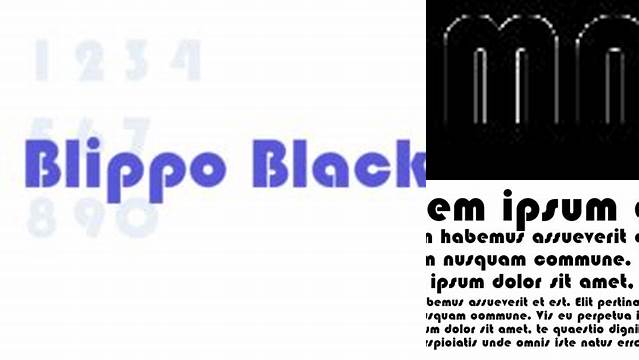
Hey everyone! Are you looking to add a touch of retro coolness to your designs? Well, you've come to the right place. Let's dive into everything you need to know about the Blippo Black MN font and how to snag it for free.
1. What is Blippo Black MN Font?
Blippo Black MN font is a typeface that screams vintage vibes. Imagine the groovy designs of the 1970s – that's the essence of Blippo. This font is characterized by its rounded, bold letterforms, making it perfect for headlines, posters, and any project where you want to make a statement. It's a display font, meaning it's best used in larger sizes to truly appreciate its unique characteristics. Think retro advertising, album covers, or even a funky logo design. Its playful yet impactful design ensures that it captures attention and brings a sense of nostalgia to any project. The font's bold weight makes it highly legible even from a distance, making it suitable for banners and billboards as well. Moreover, its unique aesthetic makes it stand out from more conventional fonts, allowing designers to create memorable and distinctive visual experiences. Blippo Black MN font is more than just a typeface; it's a design element that can evoke emotions and transport viewers back to a bygone era, making it a valuable asset in any designer's toolkit. So, if you're aiming for a retro feel, this font is definitely worth considering.
2. History of Blippo Font
The history of the Blippo Black MN font is quite fascinating. It was designed by the renowned German typographer, Josef Genzsch, back in 1969. Originally released by the Berthold Type Foundry, Blippo quickly gained popularity due to its distinctive and playful design. The font's unique rounded letterforms and bold weight made it a standout choice for designers looking to make a statement. Its emergence coincided with a period of significant cultural and artistic change, which contributed to its widespread adoption. The late 1960s and early 1970s were marked by a surge in experimental design and a rejection of traditional norms, making Blippo a perfect fit for the era. Over the years, Blippo has been used in various applications, from advertising campaigns to album covers, solidifying its place in design history. Its enduring appeal is a testament to its timeless design and its ability to evoke a sense of nostalgia. Even today, designers continue to use Blippo to add a touch of retro charm to their projects, proving that good design truly stands the test of time. So, next time you see Blippo, remember its rich history and the cultural context in which it was created.
3. Key Features of Blippo Black MN
Alright, let's break down what makes the Blippo Black MN font so special. First off, it's all about those rounded letterforms. They give the font a friendly and approachable vibe, which is perfect for designs that need a touch of warmth. The bold weight ensures that your text stands out, making it ideal for headlines and titles. Its high legibility, even at a distance, makes it suitable for various applications, from posters to digital displays. Moreover, Blippo Black MN font is known for its unique character shapes, which set it apart from other fonts. These distinctive features contribute to its overall retro aesthetic and make it instantly recognizable. The font also includes a comprehensive set of glyphs, providing designers with a wide range of options for creating diverse and engaging designs. Its versatility extends to both print and digital media, making it a valuable asset for any designer. Whether you're working on a vintage-inspired logo or a modern poster with a retro twist, Blippo Black MN font offers the perfect combination of style and functionality. So, if you're looking for a font that's both unique and impactful, Blippo Black MN is definitely worth considering.
4. Ideal Uses for Blippo Black MN Font
So, where can you use the Blippo Black MN font? This font is incredibly versatile, especially when you're aiming for a retro or vintage feel. Think about using it for posters, flyers, and album covers. It's also great for branding projects that want to evoke a sense of nostalgia. Blippo works wonders for headlines, titles, and short bursts of text where you want to make a bold statement. Its unique character shapes and rounded letterforms make it perfect for designs that need to stand out from the crowd. In the digital realm, Blippo can be used for website headers, social media graphics, and even app interfaces. Its high legibility ensures that your message is clear and impactful, regardless of the medium. Moreover, Blippo can be combined with other fonts to create interesting and dynamic typographic compositions. For example, pairing it with a clean sans-serif font can create a modern yet retro feel. So, whether you're designing for print or digital, Blippo Black MN font offers a wide range of possibilities for adding a touch of vintage charm to your projects. Just remember to use it sparingly to maximize its impact.